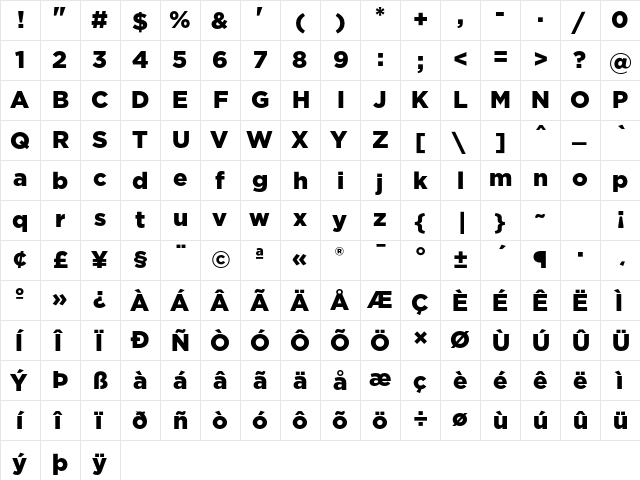
Gotham Black
| Foundry | Hoefler & Frere-Jones |
| Designer | Tobias Frere-Jones |
Design Context for Gotham Typeface
Gotham takes a measured approach to typography — its balanced proportions and neutral character make it a reliable workhorse for both digital and print work.